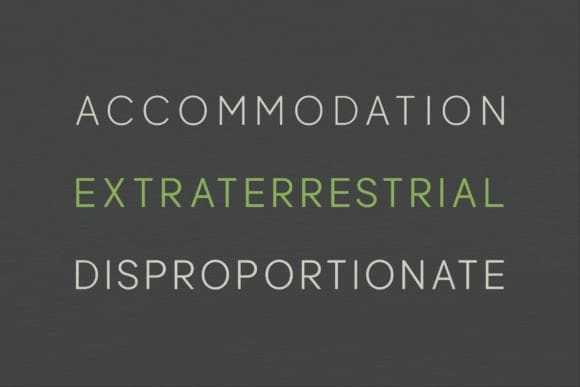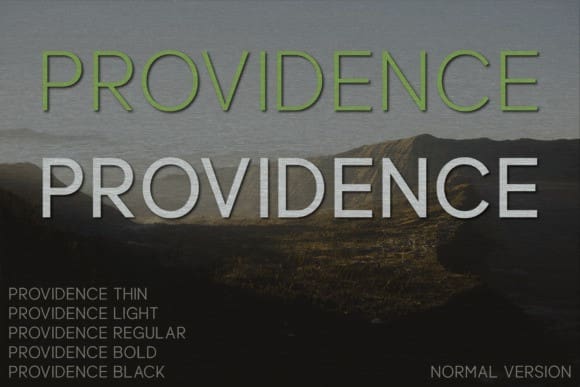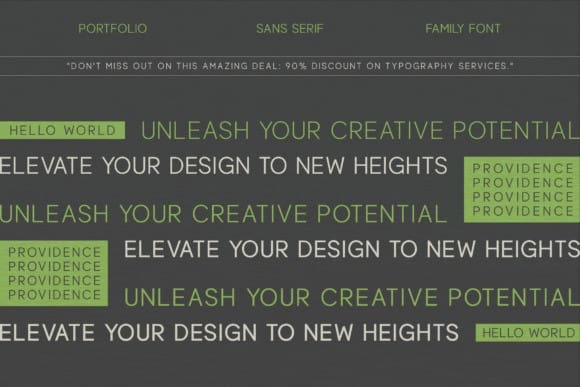
Providence Font Family
Providence Font Family – an epitome of sophistication and streamlined design. This refined sans serif font family comes with five distinct weights, an eloquent blend of contemporary aesthetics and opulence. Masterfully sculpted with extreme precision, ProvidenceFont is a game-changer, effortlessly elevating a variety of projects, from high-end magazine layouts to cinematic film posters, or refined logos. Experience the sublime combination of stylishness and simplicity, imbuing your designs with a timeless appeal. Embrace the transformative potential of the Providence Font Family today.